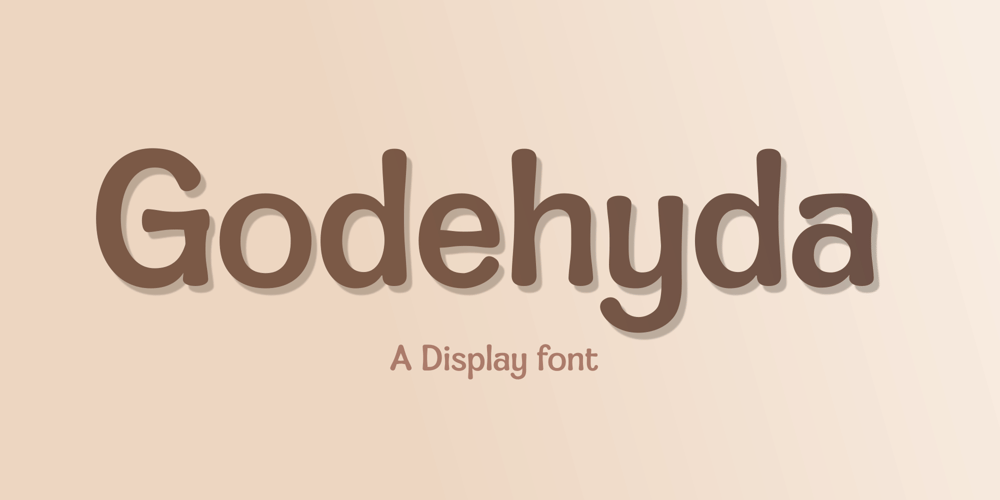
Godehyda Font Family was designed by Anomi Eka and published by Anomieka. Godehyda contains 1 styles and family package options. It’s smooth, it’s cute, it’s fun, and it’s mighty tasty: it’s Godehyda!It is perfect for headings, flyer, greeting cards, product packaging, book cover, printed quotes, logotype, apparel design, album covers, etc.